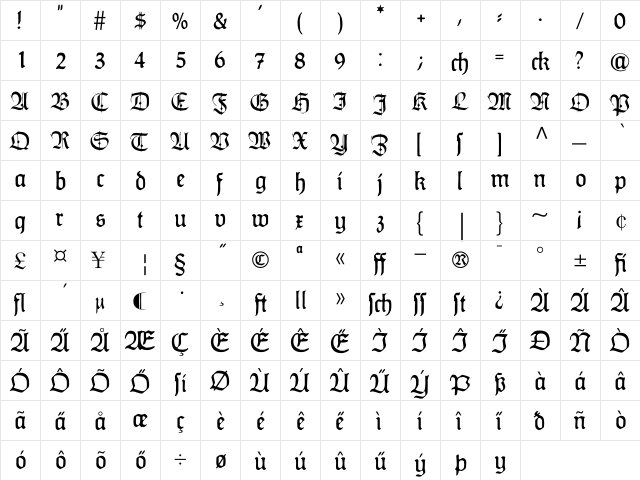
HumboldtFraktur Zier Regular
| Designer | Dieter Steffmann |
Design Context for HumboldtFraktur Zier Typeface
HumboldtFraktur Zier channels the dramatic heritage of Fraktur and Gothic scripts, bringing a sense of historical gravitas to any design. Its bold stroke weight gives it real presence on the page.
A natural fit for music packaging, gothic editorial design, and any project that needs historical weight.
Font Pairing: Pair with a clean neutral sans-serif for body copy to let HumboldtFraktur Zier's character lead without overwhelming the composition.
Pro Tip: Reserve HumboldtFraktur Zier for display and logo use — pair it with a clean sans-serif for body copy to prevent the composition from feeling oppressive.